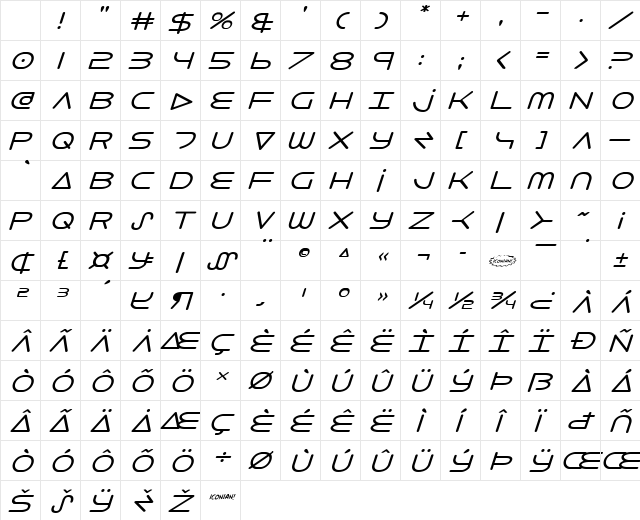
8th Element is a composed and adaptable typeface that performs quietly and consistently across a wide range of design contexts. The slanted form adds forward momentum and visual energy.
Pro Tip: Use 8th Element for emphasis, pull quotes, and subheadings where its slanted energy can add rhythm to the layout.